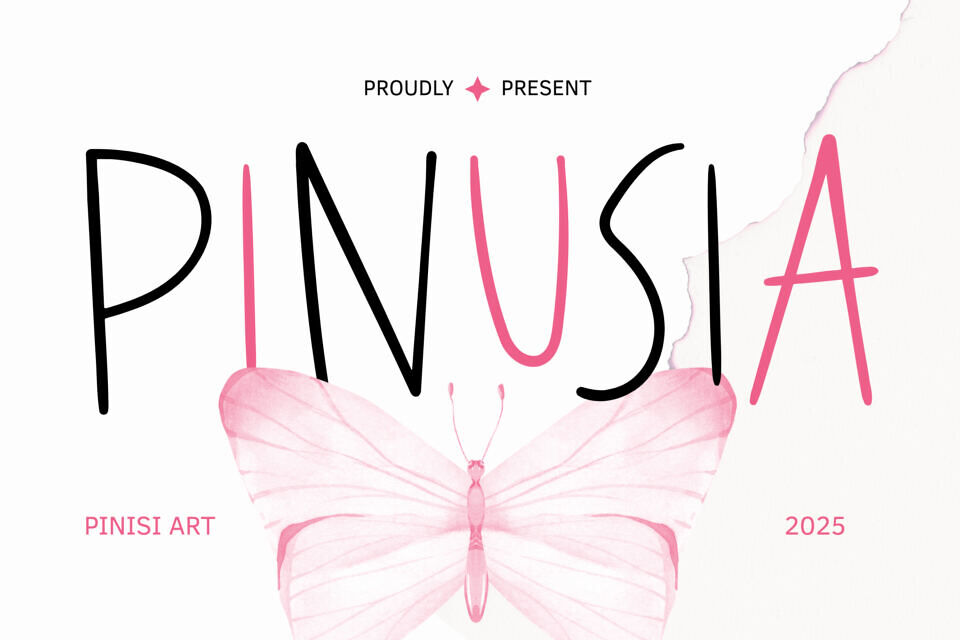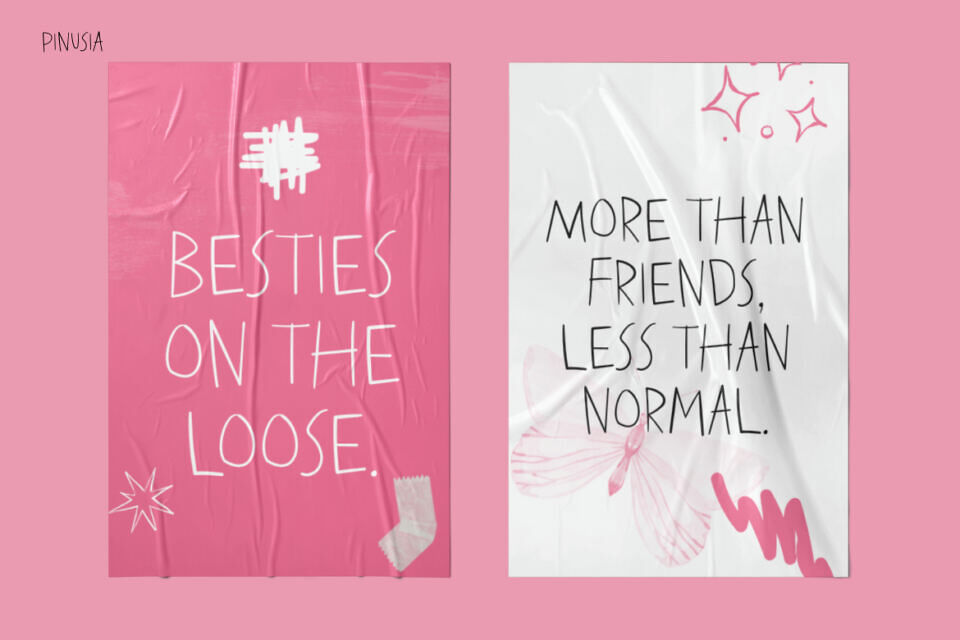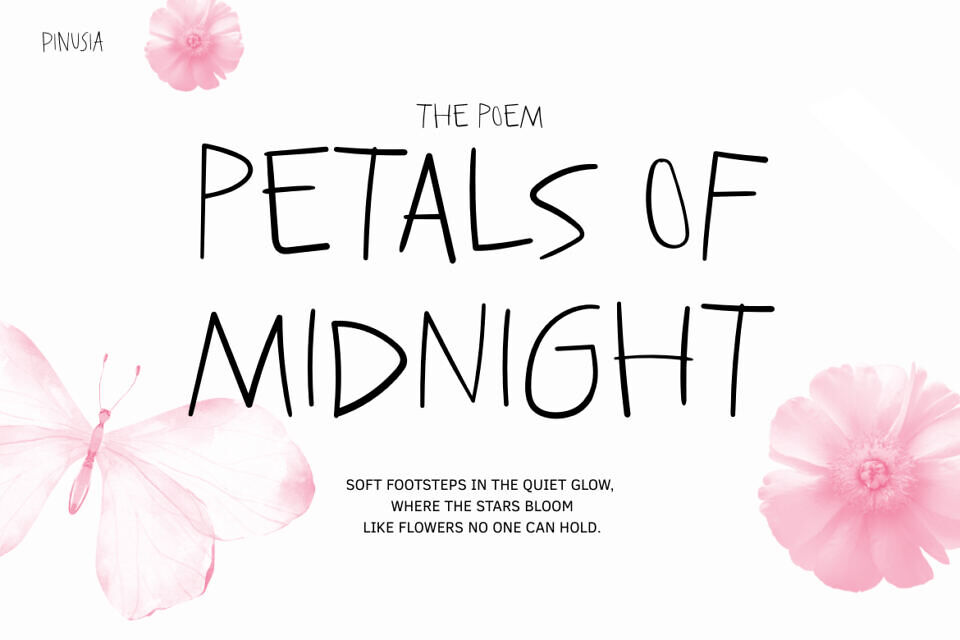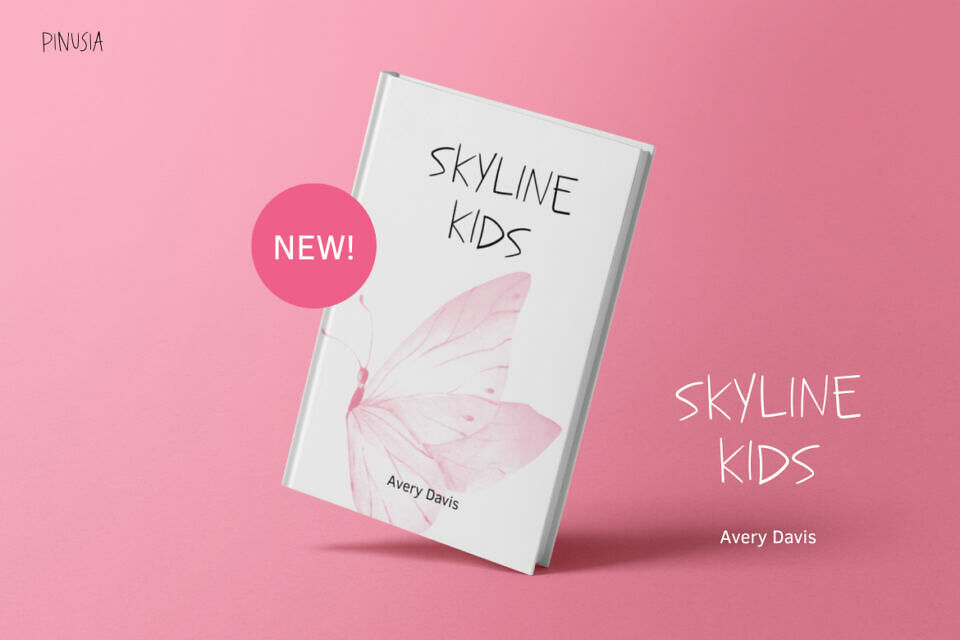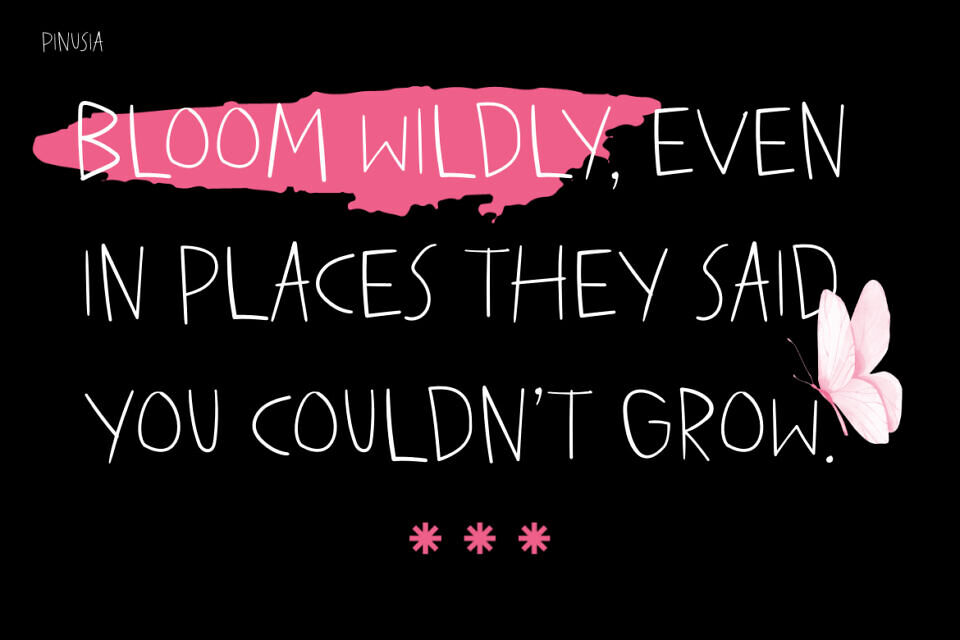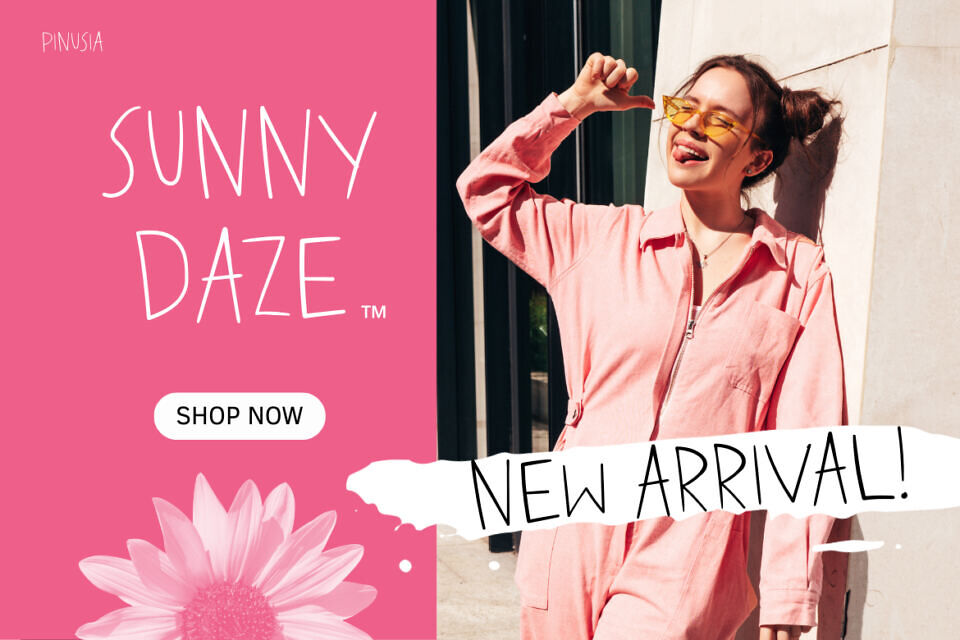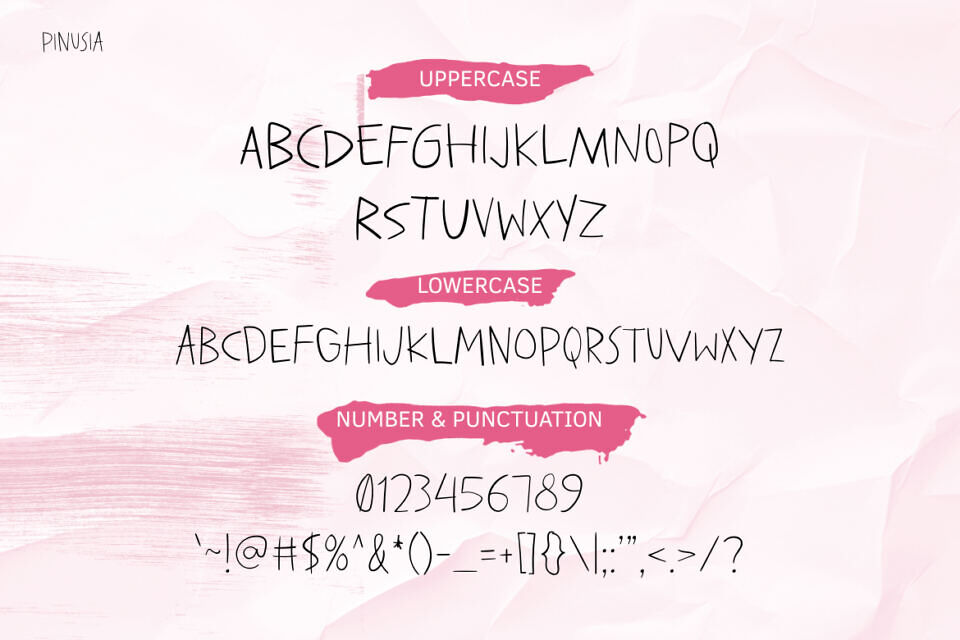
Pinusia is a cute casual handwritten font that combines creativity, style, and authenticity. Its smooth, organic strokes give every word a personal, lively touch, while the playful rhythm adds warmth and character to designs.
Perfect for branding, social media content, invitations, and printed materials, Pinusia balances aesthetic appeal with readability. Its handcrafted charm adapts seamlessly to both minimal layouts and bold, expressive designs, making it ideal for projects that require a modern, approachable, and visually engaging handwritten style.